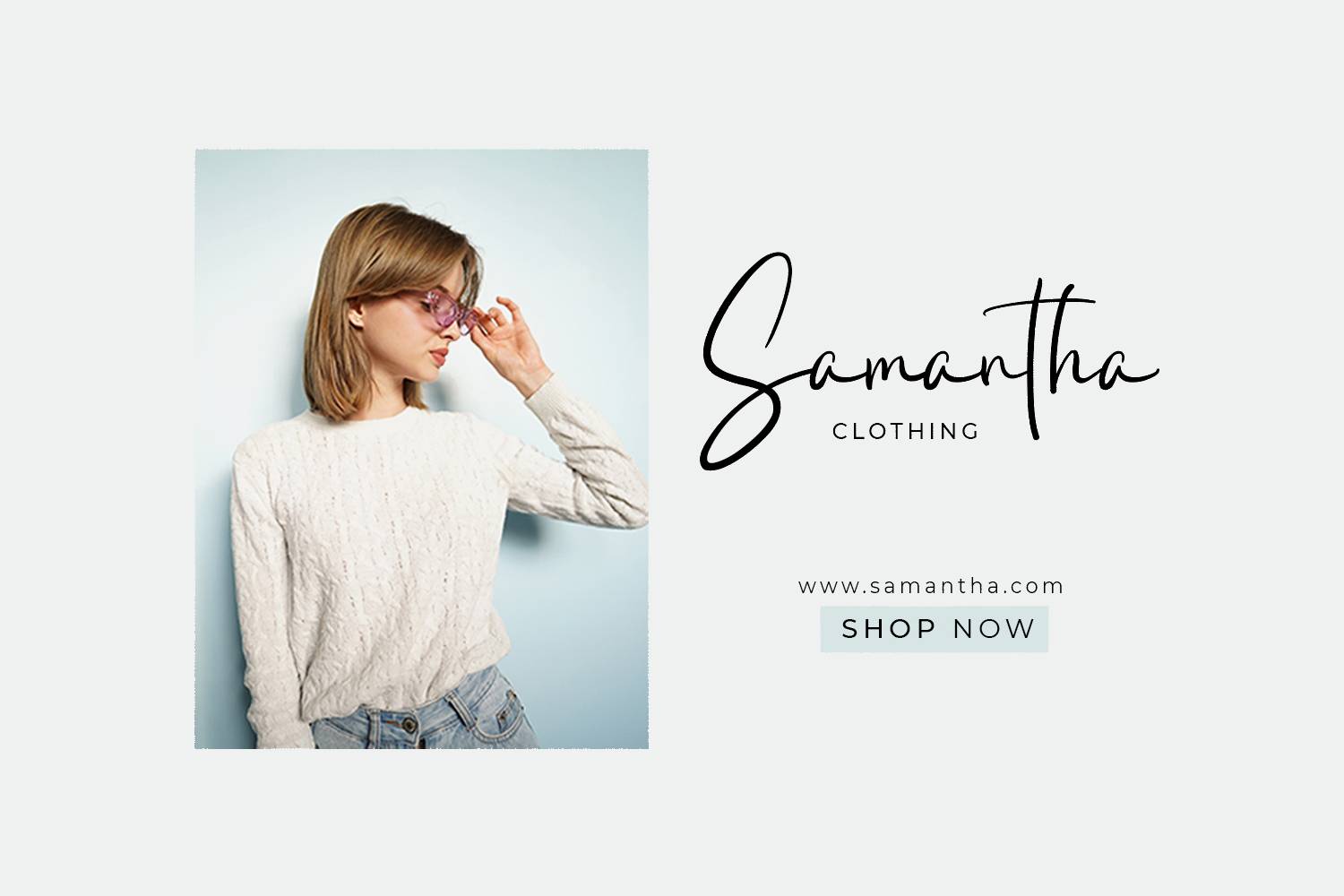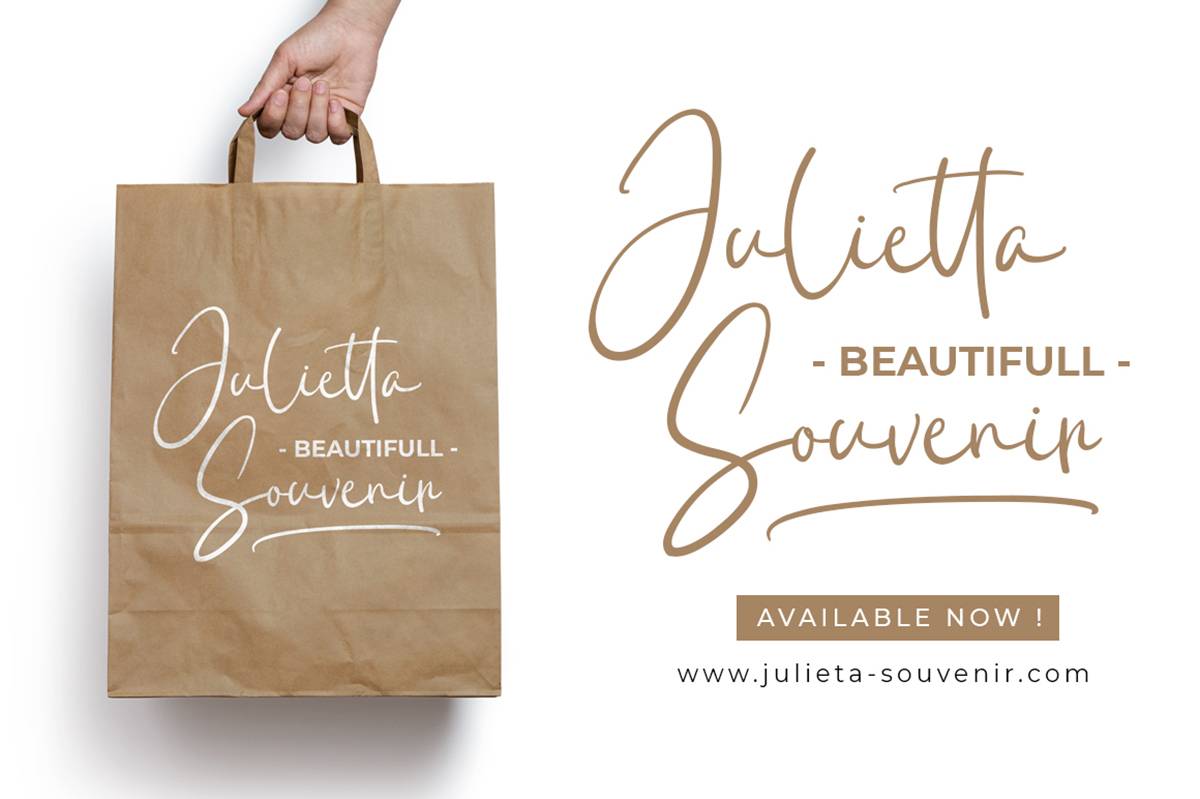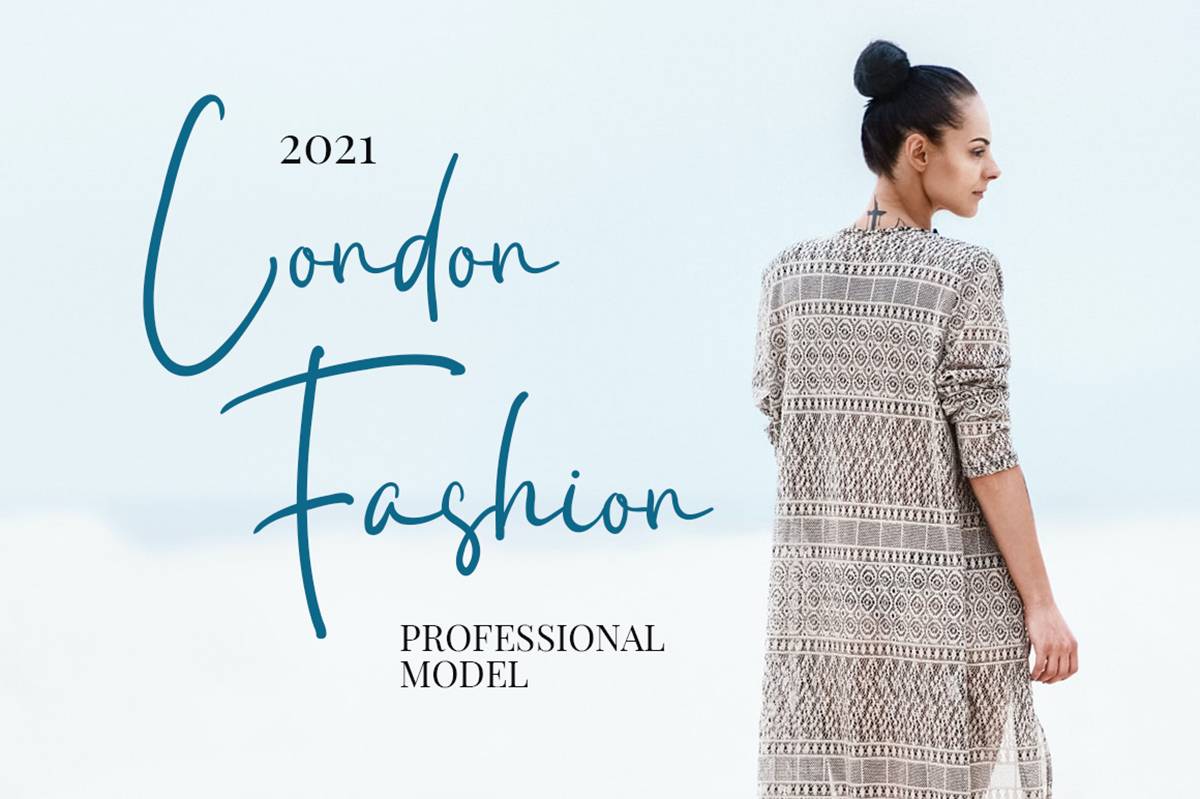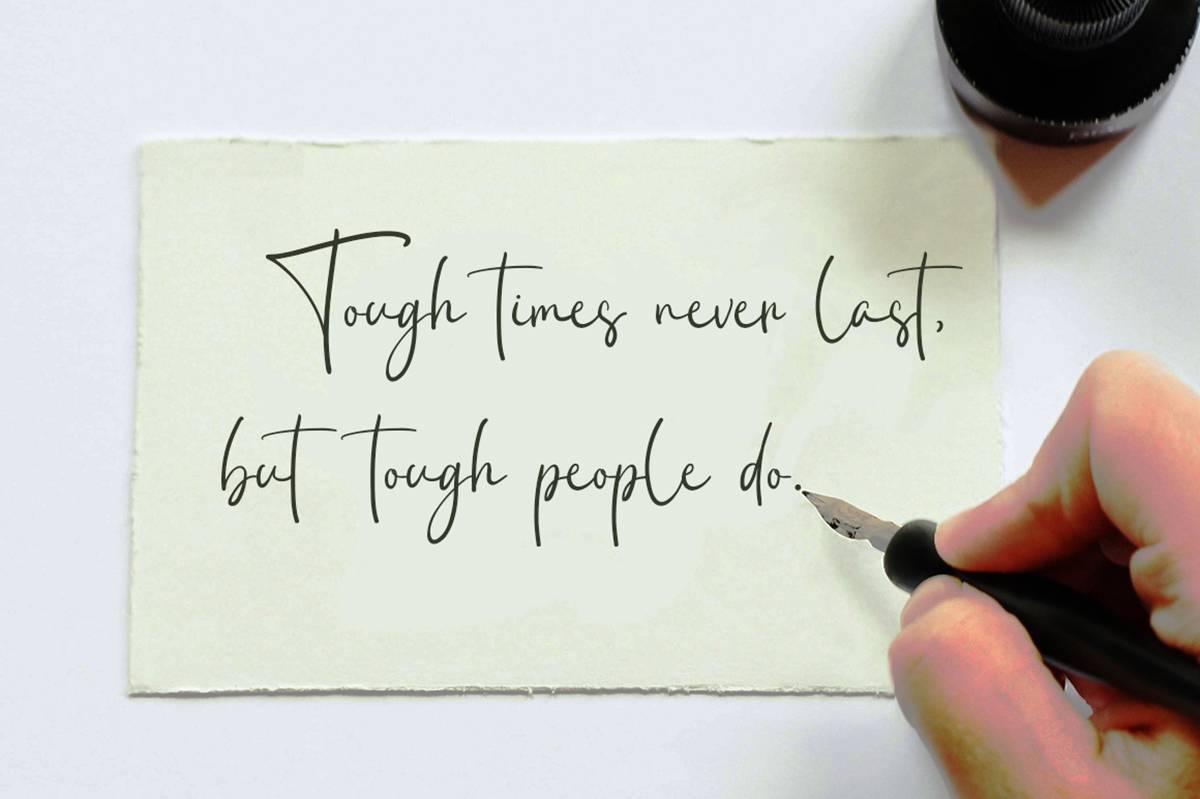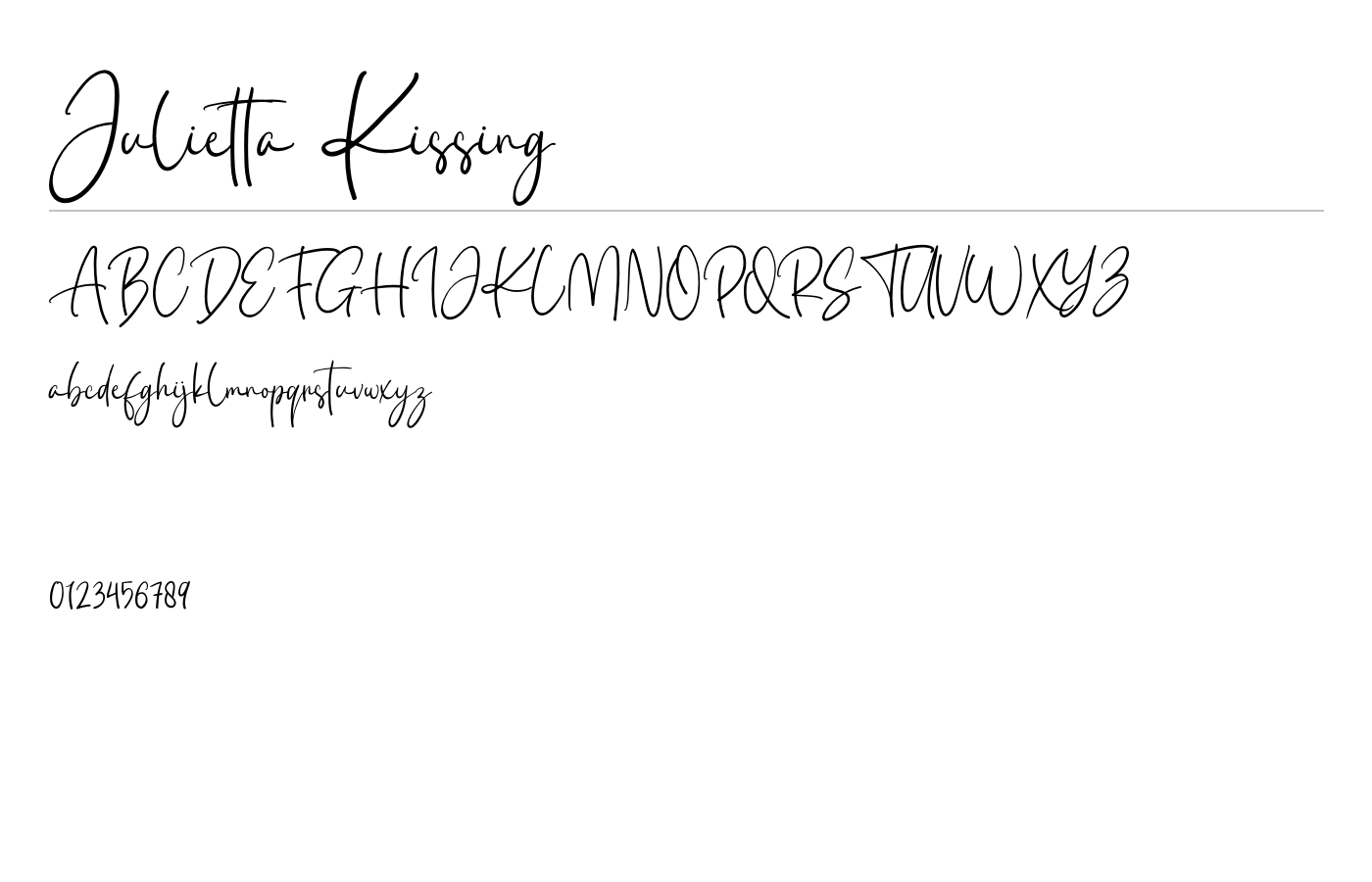
Julietta Kissing is a delicate, handwritten script font with a graceful, airy feel created by its slender, flowing strokes and tall x-height. Its casual yet elegant style makes it perfect for romantic designs, personal branding, invitations, and lifestyle projects that want a warm, approachable touch. This font shines in display uses where a blend of sophistication and charm is desired.
Julietta Kissing Font
About Julietta Kissing Font